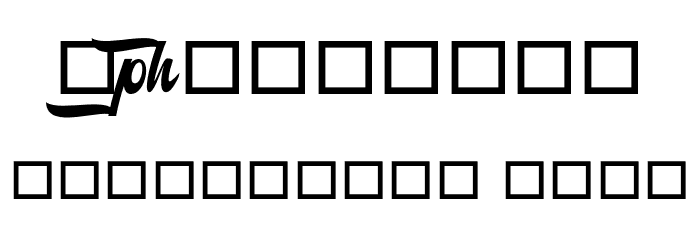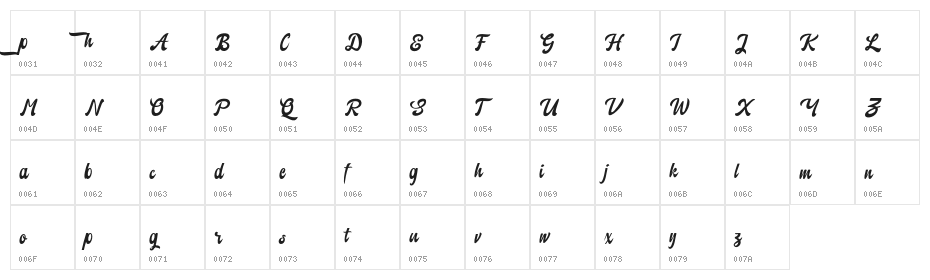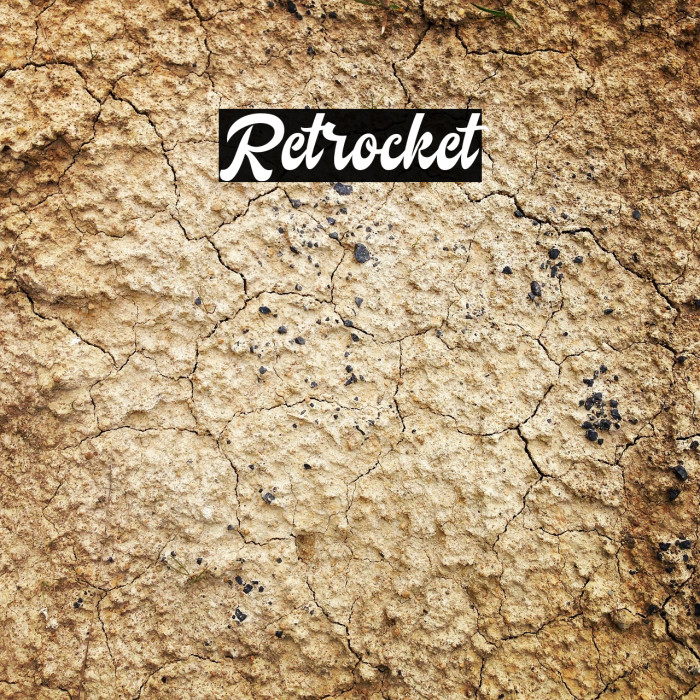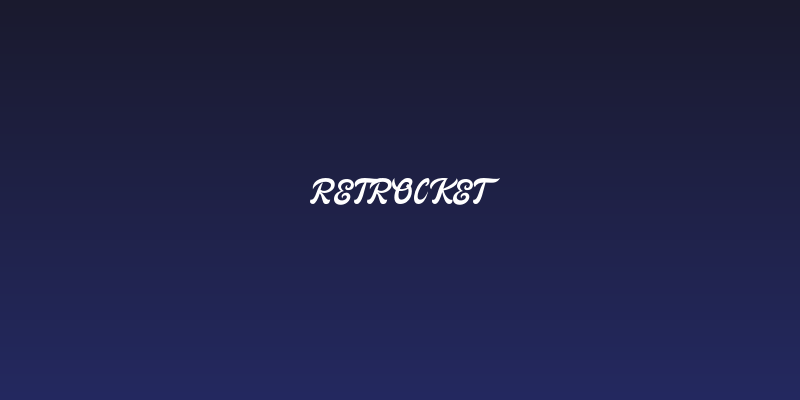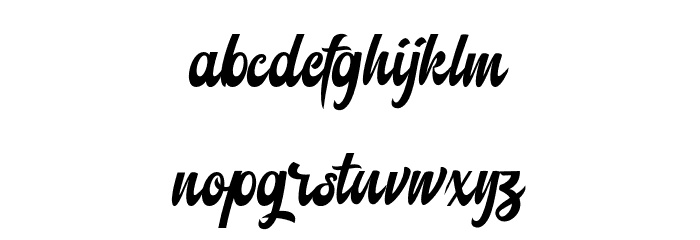
Retrocket Font
Retrocket Description
This font features a bold, flowing script style that exudes elegance and sophistication. The uppercase letters are characterized by their sweeping curves and dramatic flourishes, while the lowercase letters maintain a consistent, smooth flow that enhances readability. The font's design is reminiscent of classic calligraphy, with a modern twist that makes it suitable for a variety of contemporary applications. The characters are well-spaced, ensuring clarity and legibility even in smaller sizes. This font is ideal for projects that require a touch of class and refinement, such as wedding invitations, luxury branding, and high-end product packaging.